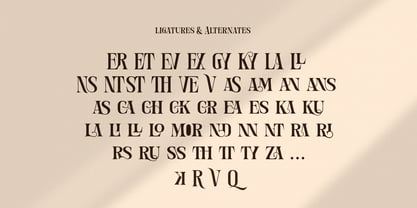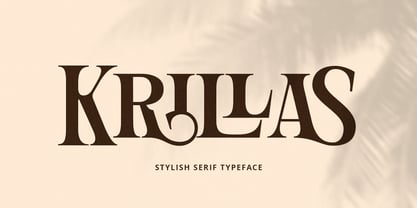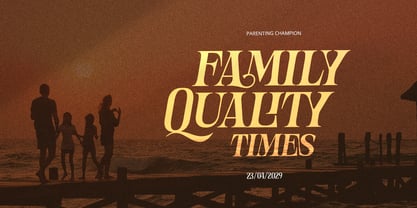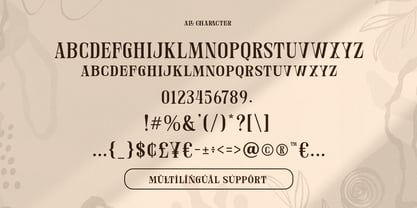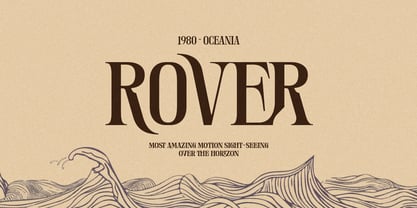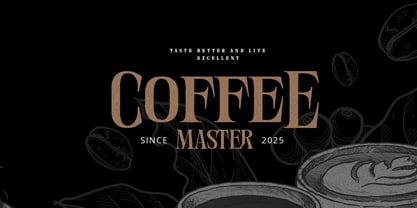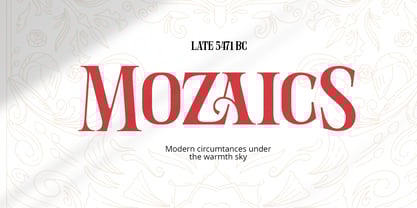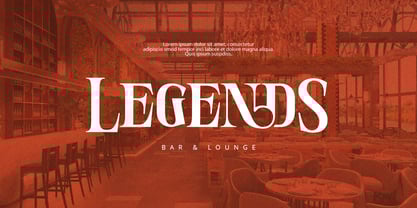
Krillas
by Grontype
The Krillas Font Family was designed by Jarnawi Saja and published by Grontype. Krillas contains 2 styles and family package options. More about this family
Krillas is a modern and stylish serif typeface designed to make a bold and elegant statement. Featuring a refined balance of classic serifs with contemporary design, this font is ideal for high-impact headers, sophisticated wedding stationery, and timeless logotypes. What sets Krillas apart is its collection of unique ligatures and beautiful alternates that bring a touch of artistry to every letterform. Whether you're aiming for minimal elegance or a luxurious visual identity, this typeface adds charm and versatility to your creative work.
Features:
* Stylish Serif Font
* Basic Latin Glyphs
* Unique Characters
* Awesome ligature Pairs
* Numeral and Punctuation
* Currencies
* Multilingual Support